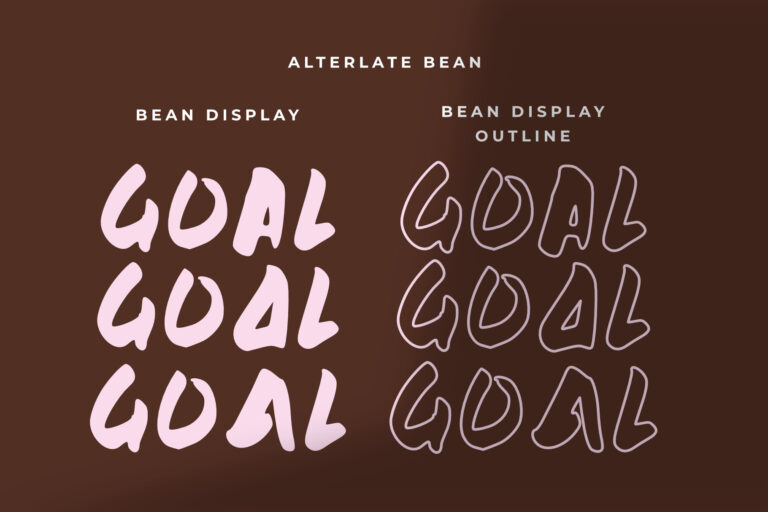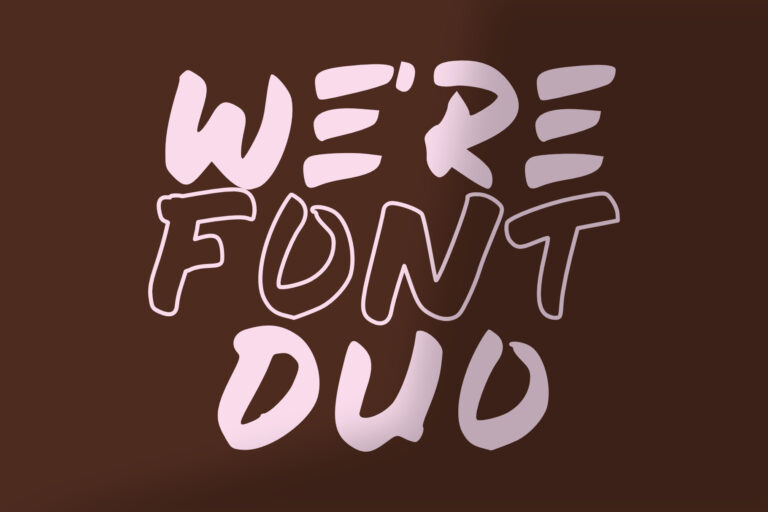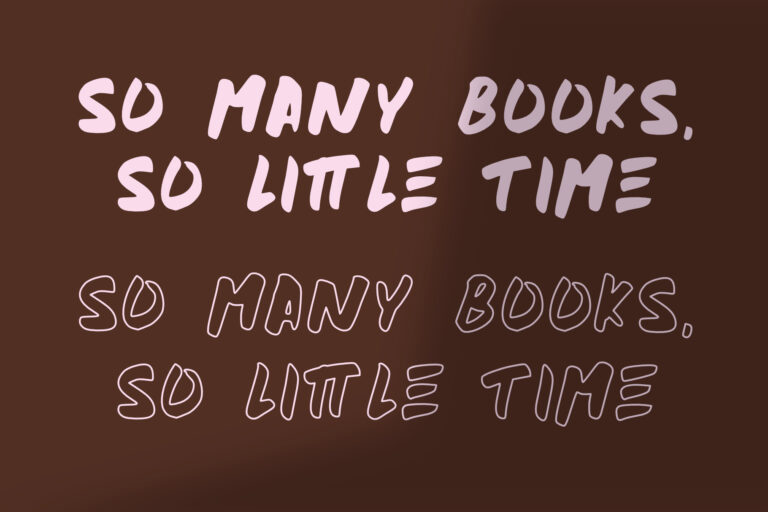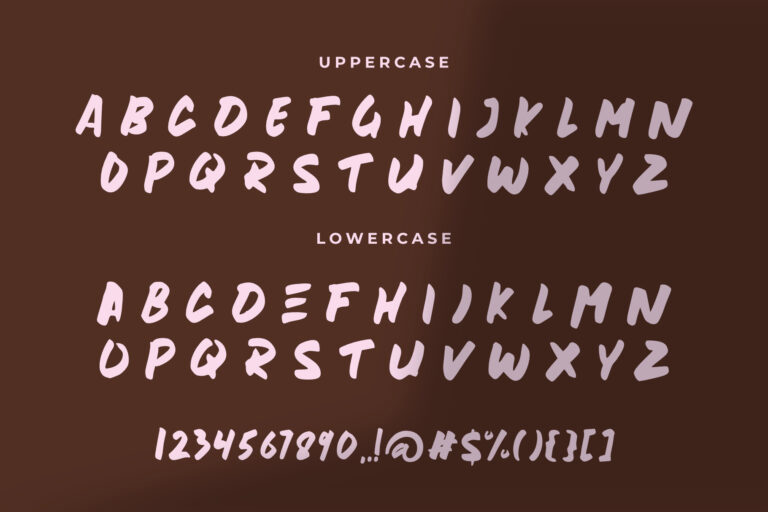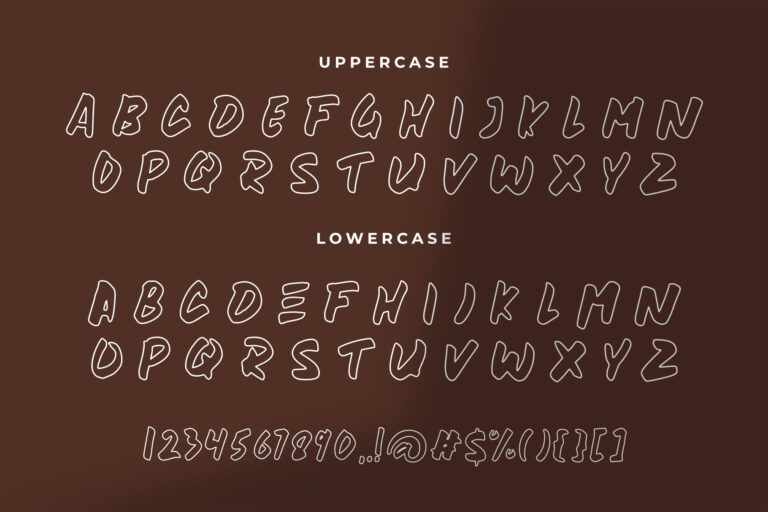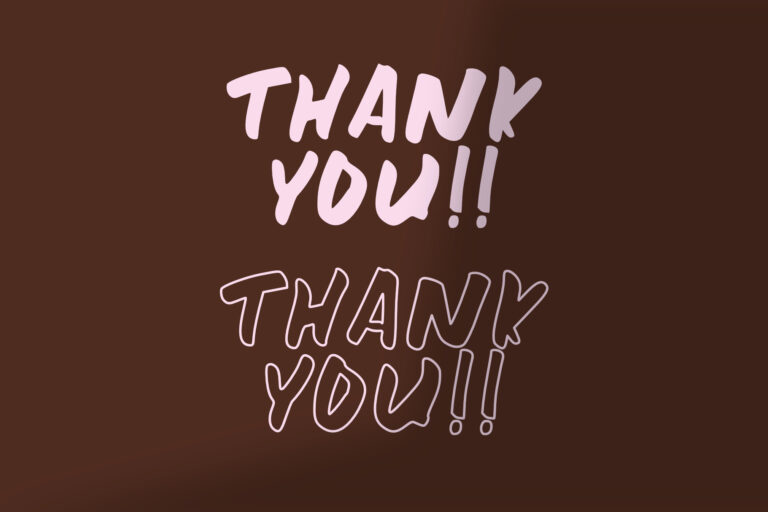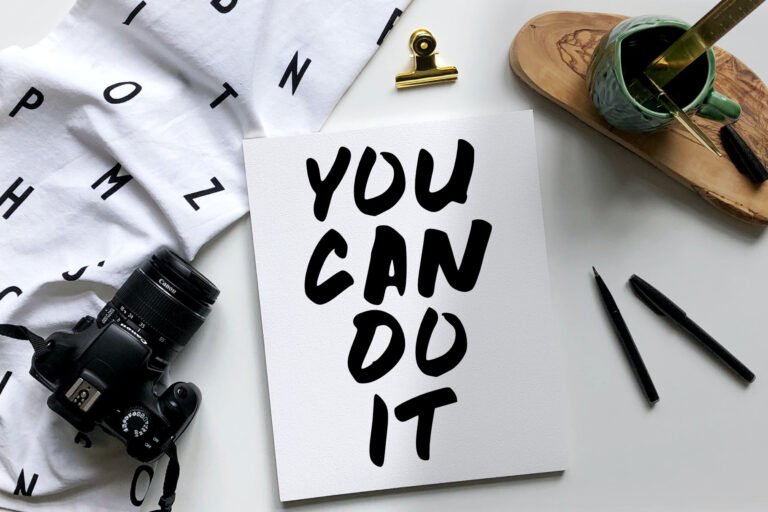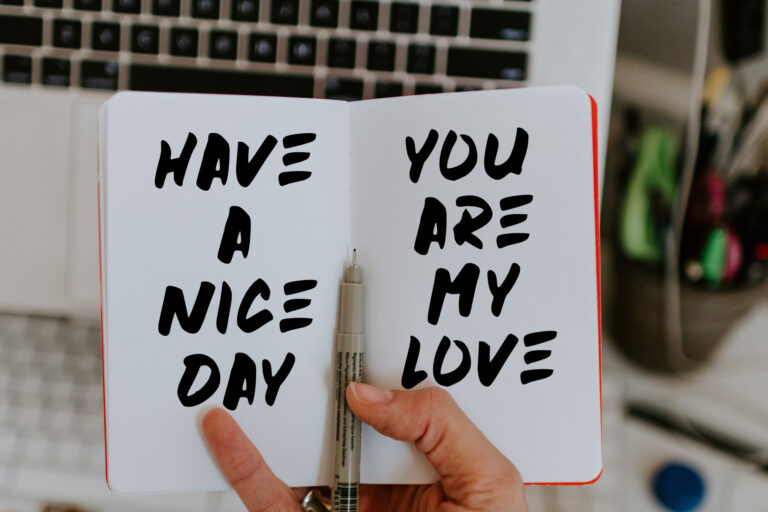
Bean Display
Bean Display Outline
Bean is a bold and chunky handwritten font, created with the help of a brush pen. Add this fresh font to your favorite creative ideas!